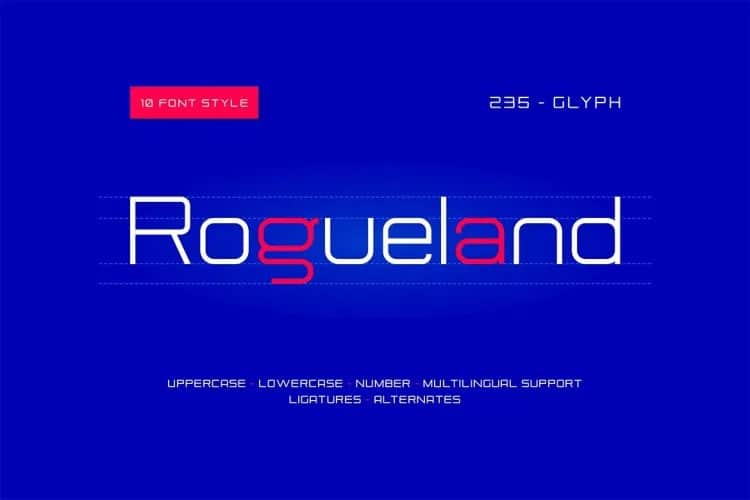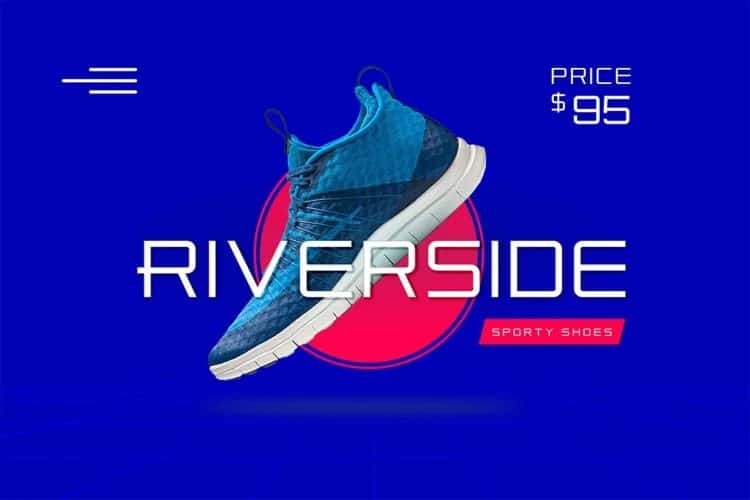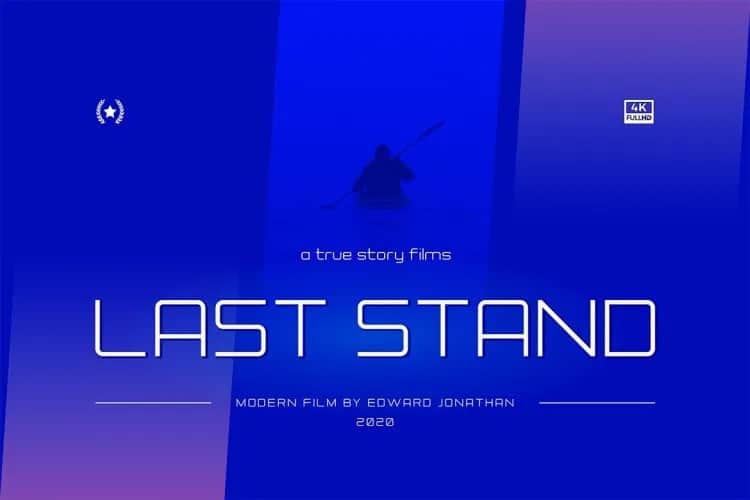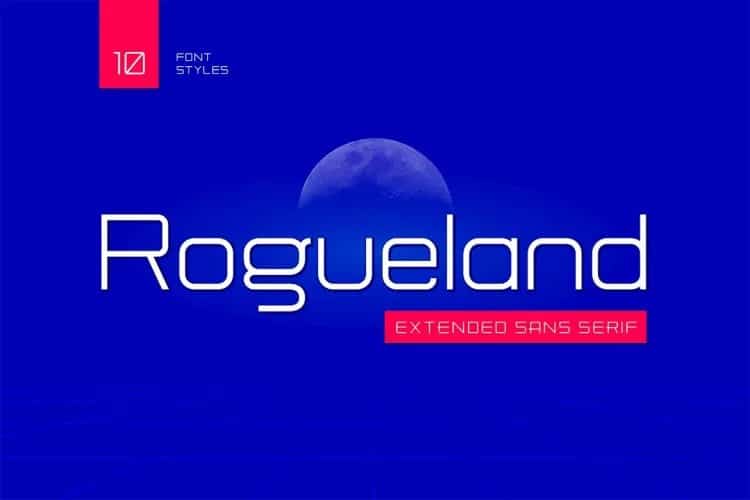
Rogueland Sans Serif Font is a modern sans serif with a geometric touch. Made from font designer named Namara Creative Studio. This font is Modern extended sans serif font that is out of this world. A strong balance between pointed corners and smooth curves with luxurious styles. Perfect for all purposes but especially for headlines.